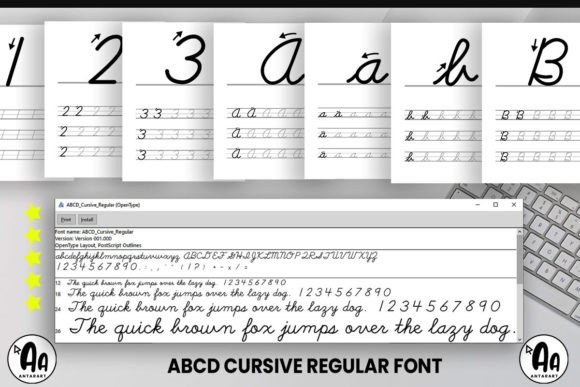
Introducing the Abcd Cursive Regular Font: A Fun and Interactive Learning Tool
Are you a designer, teacher, or parent looking for a creative way to teach cursive handwriting? Look no further than the Abcd Cursive Regular Font. This versatile display font is designed to help you create engaging and interactive worksheets that make learning cursive a breeze. In this article, we’ll explore the features and benefits of the Abcd Cursive Regular Font and how it can be used to create thousands of worksheets using any software.
What is the Abcd Cursive Regular Font?
The Abcd Cursive Regular Font is a carefully crafted display font that mimics traditional cursive handwriting. Its elegant and flowing design makes it perfect for creating worksheets, educational materials, and other learning resources. With this font, you can create a wide range of activities, from simple tracing exercises to complex writing prompts, that cater to different learning styles and age groups.
Key Features of the Abcd Cursive Regular Font
- High-quality design: The font features a beautiful, cursive script with precise letterforms and spacing. This ensures that your worksheets look professional and visually appealing.
- Customizable: With the Abcd Cursive Regular Font, you can adjust the font size, color, and style to suit your needs. This allows you to create a wide range of worksheets, from simple to complex, that cater to different learning objectives.
- Interactive: The font is designed to make learning cursive handwriting fun and engaging. You can create interactive worksheets with tracing exercises, word searches, and other activities that encourage students to practice their handwriting skills.
Benefits of Using the Abcd Cursive Regular Font
The Abcd Cursive Regular Font offers several benefits for designers, teachers, and parents who want to teach cursive handwriting in an enjoyable and interactive way. Some of the key benefits include:
- Saves time: With the Abcd Cursive Regular Font, you can create thousands of worksheets in minutes, saving you time and effort.
- Increases engagement: The font’s interactive design features make learning cursive handwriting fun and engaging, increasing student motivation and participation.
- Improves handwriting skills: The Abcd Cursive Regular Font helps students develop muscle memory and improve their handwriting skills with consistent practice.
- Enhances creativity: The font’s customizable design allows you to create unique and creative worksheets that cater to different learning styles and interests.
Ideas for Using the Abcd Cursive Regular Font
The Abcd Cursive Regular Font is a versatile tool that can be used in a variety of ways to teach cursive handwriting. Here are some ideas to get you started:
- Tracing exercises: Create worksheets with tracing exercises that help students develop muscle memory and improve their handwriting skills.
- Word searches: Design word searches that require students to find and write words in cursive.
- Writing prompts: Create worksheets with writing prompts that encourage students to write short stories, poems, or journal entries in cursive.
- Activity sheets: Design activity sheets that combine cursive handwriting with other subjects, such as math, science, or social studies.
| Author | AntarArt |
The Abcd Cursive Regular Font is a valuable resource for designers, teachers, and parents who want to teach cursive handwriting in an enjoyable and interactive way. With its elegant design, customizable features, and compatibility with most software applications, this font is perfect for creating thousands of worksheets that cater to different learning styles and age groups. Whether you’re looking to create simple tracing exercises or complex writing prompts, the Abcd Cursive Regular Font is an excellent choice.